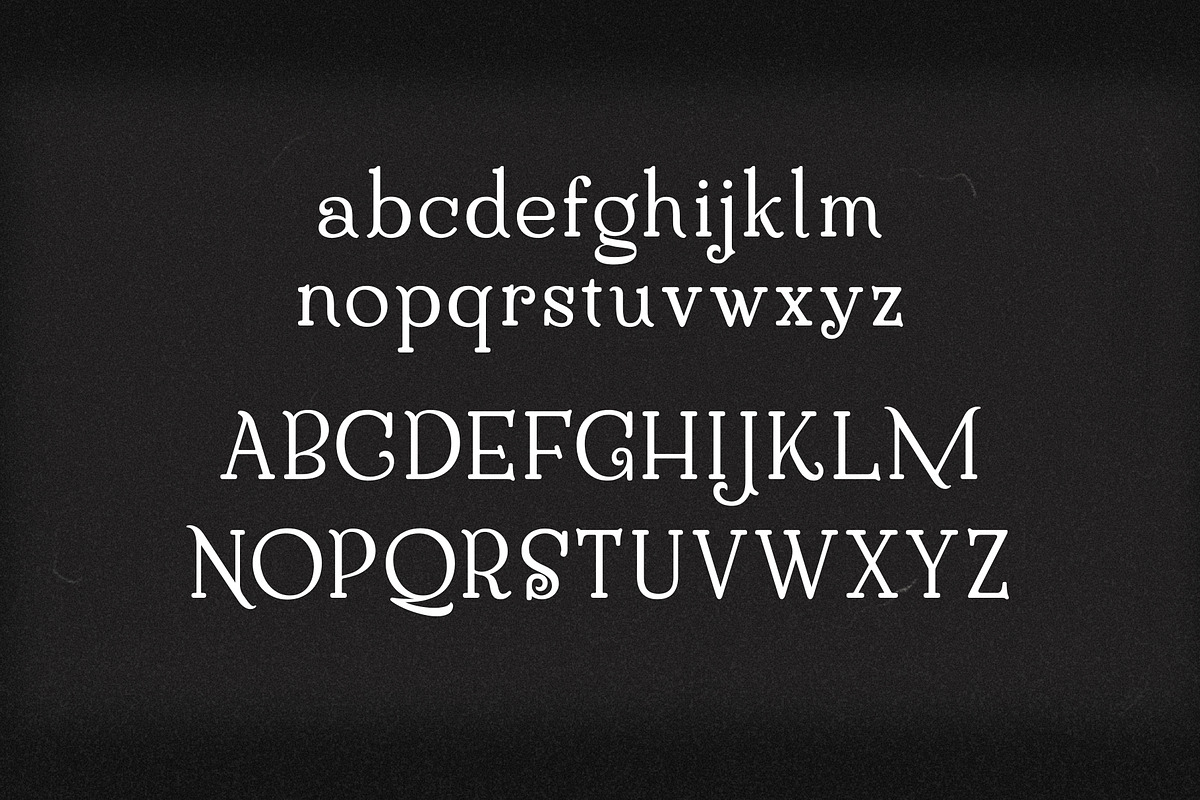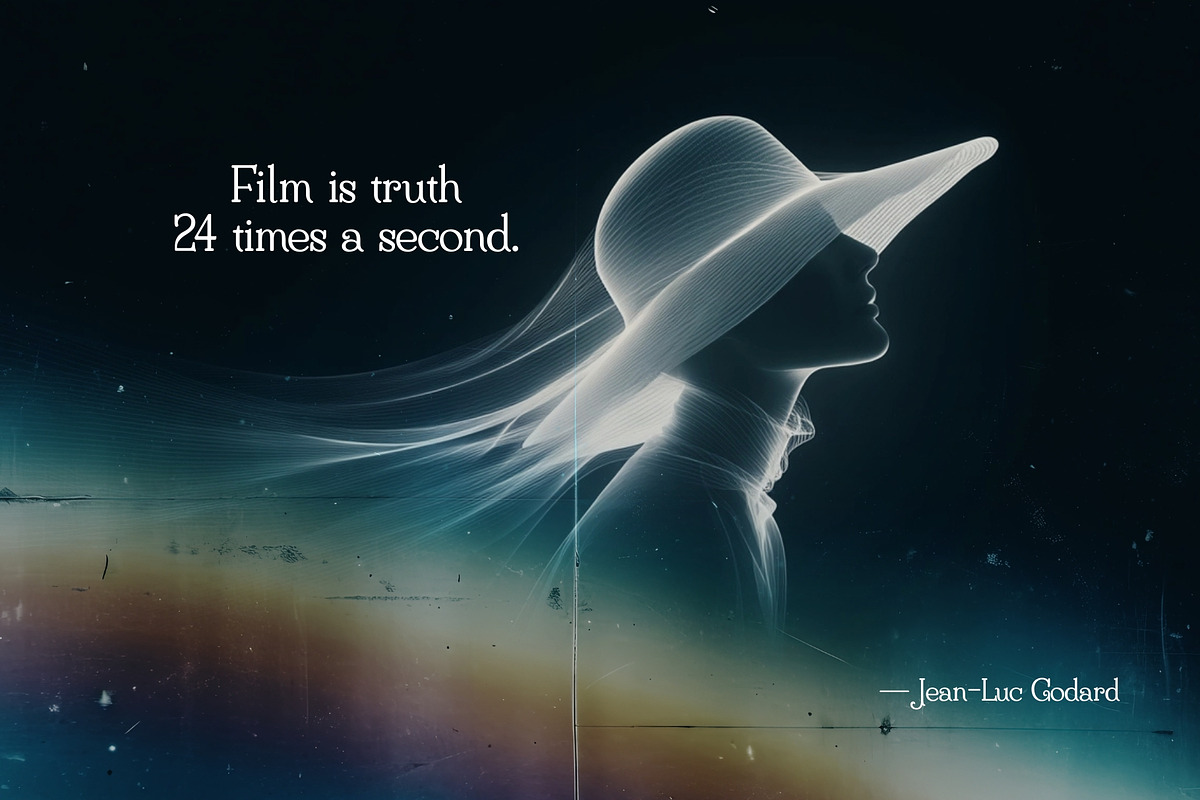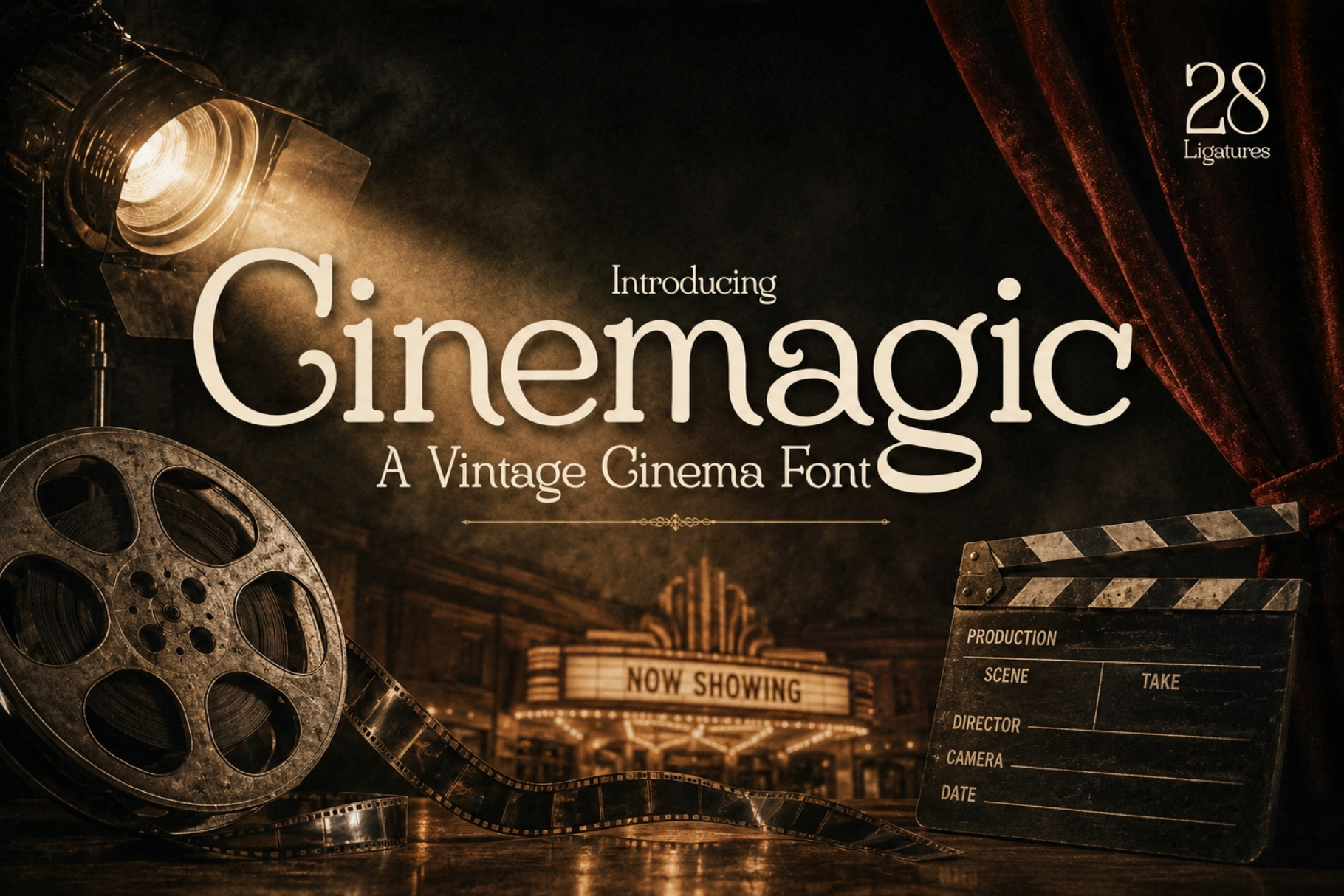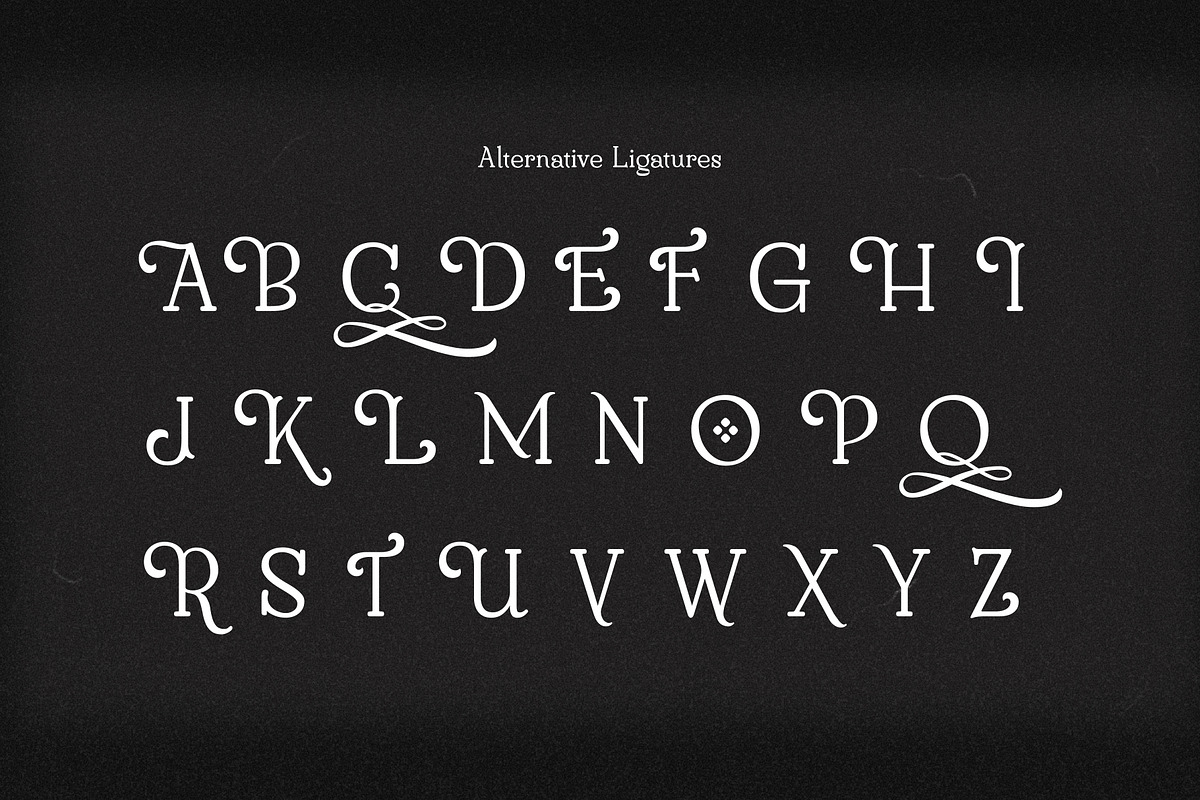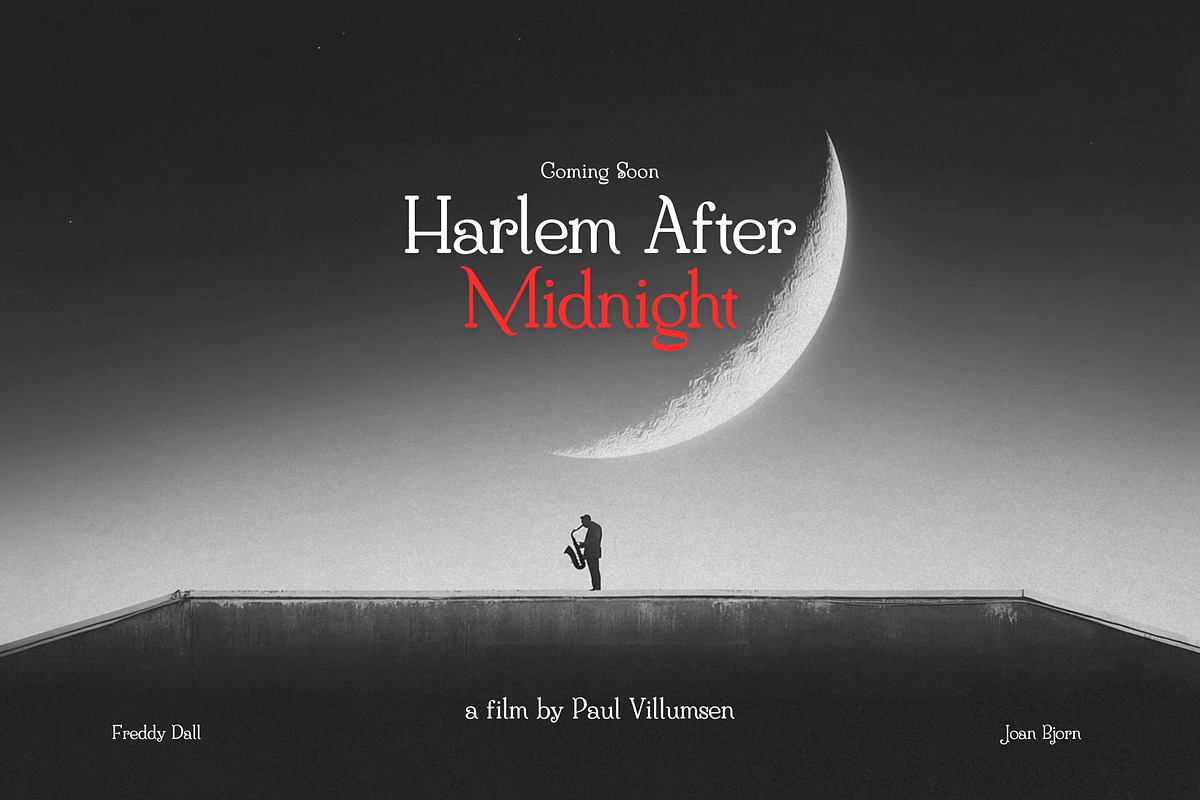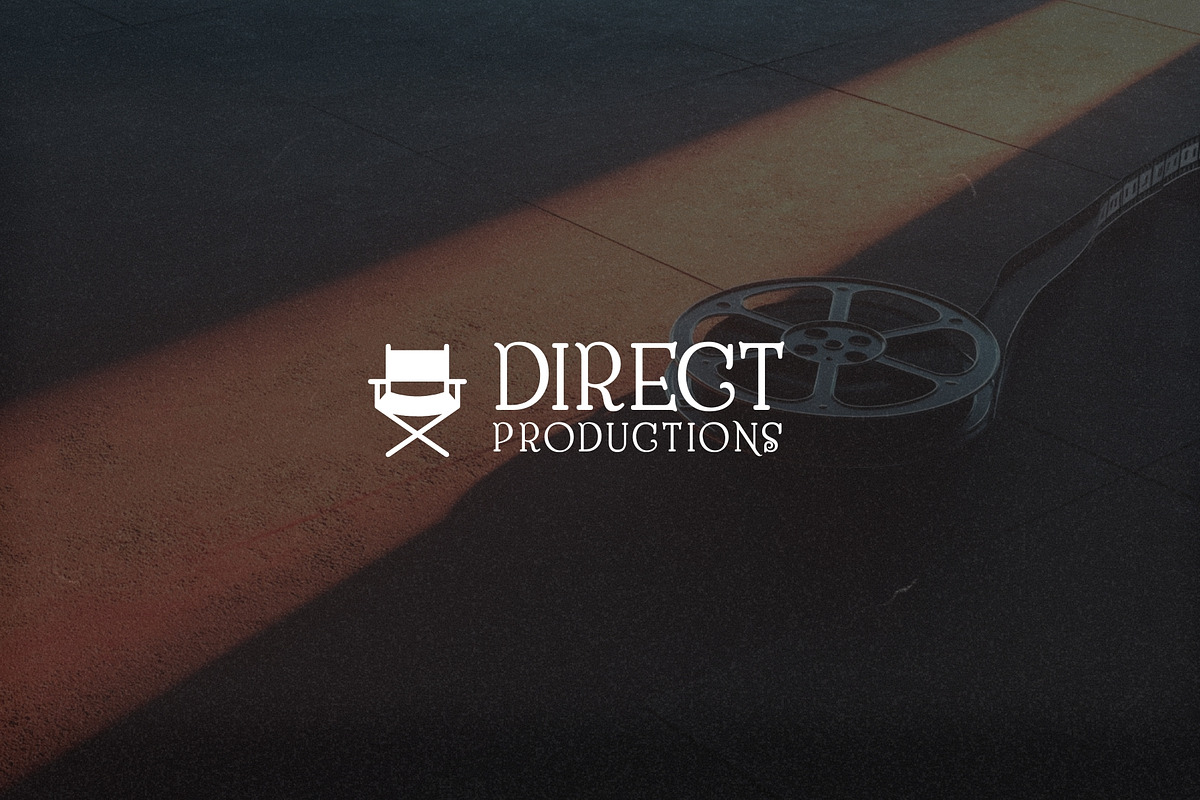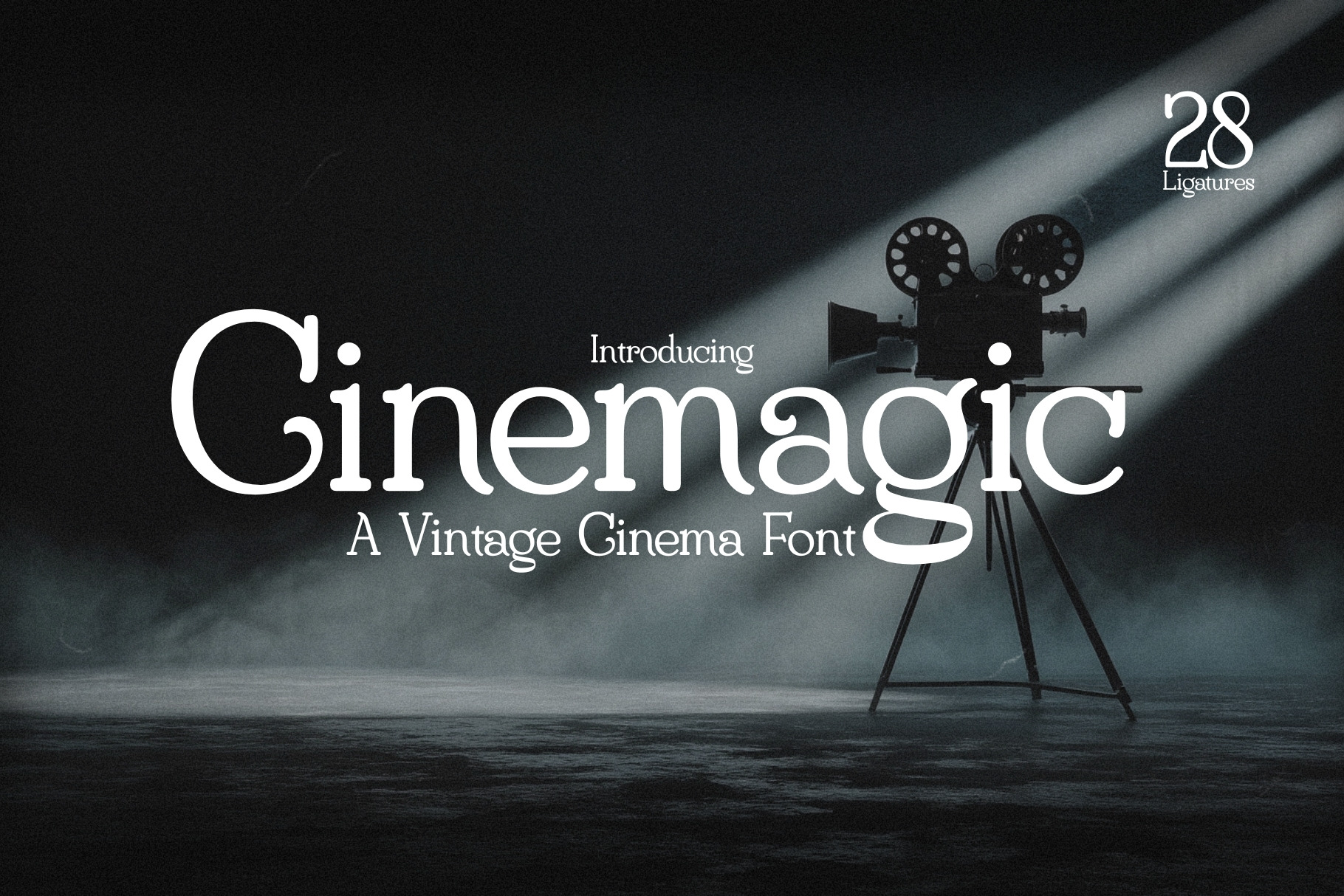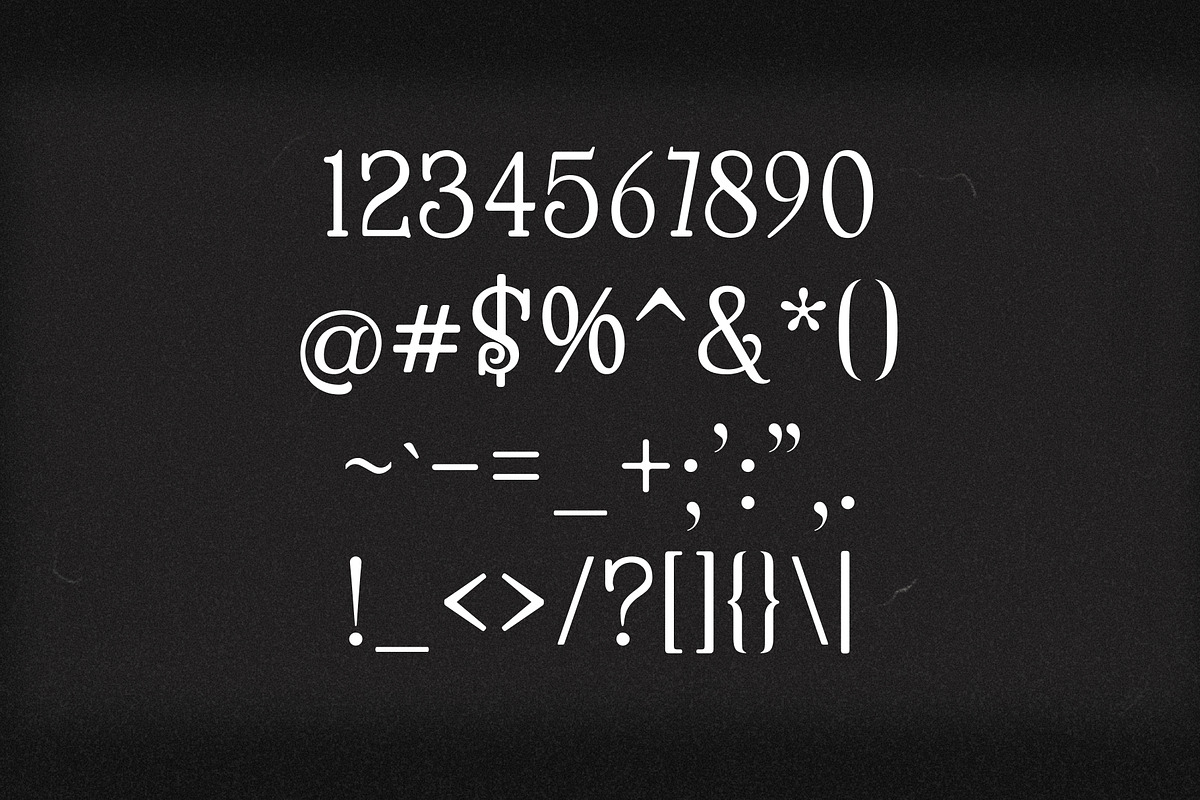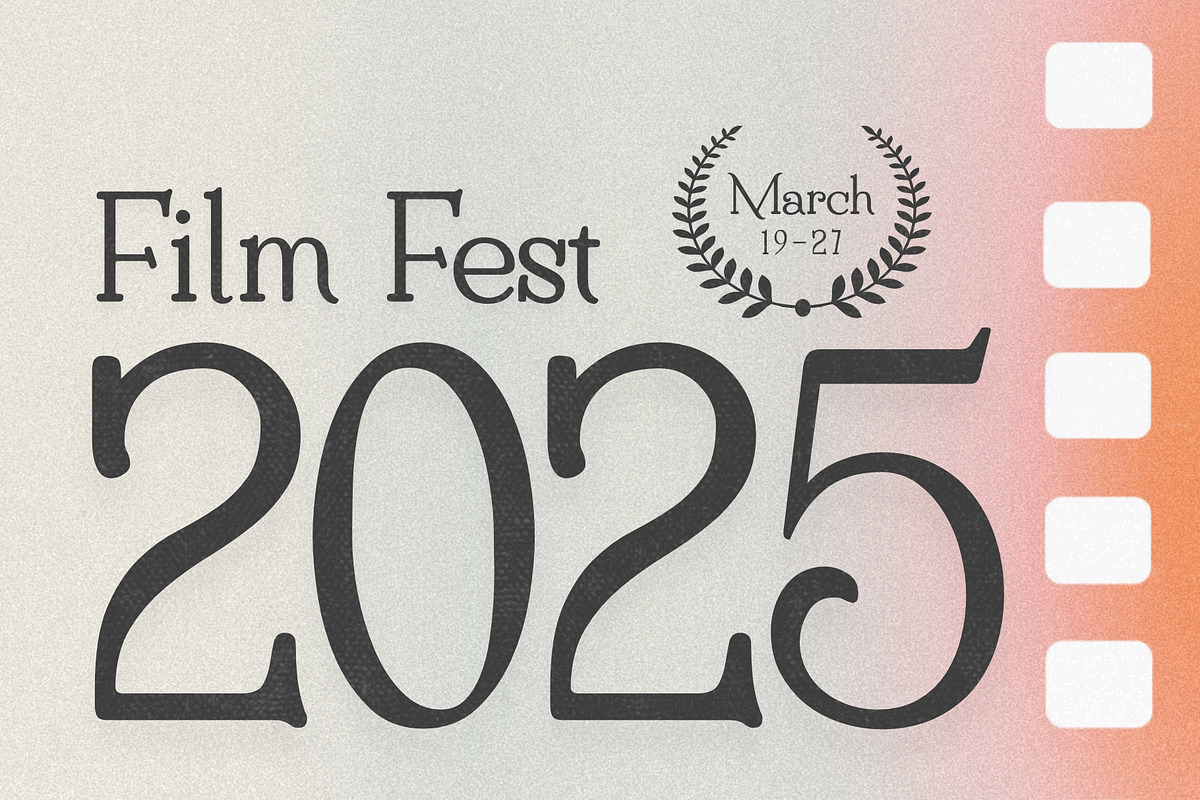
Cinemagic - Vintage Cinema Font
Introducing Cinemagic, a show-stopping typeface inspired by the golden age of cinema when the first film reels flickered to life and Hollywood was just beginning to dream. Drawing from the iconic typography of vintage movie posters, silent film titles, and art deco marquees, Cinemagic brings the glamour, drama, and charm of early 20th-century cinema to your modern designs.
Crafted with precision and passion, this font features 28 handcrafted ligatures that flow seamlessly for stunning typographic compositions. Whether you're designing for film, fashion, branding, or editorial work, Cinemagic is your ticket to visual storytelling that captivates like a classic silver screen masterpiece.
✨ Key Features:
Inspired by 1920s–1930s Hollywood film titles
Elegant vintage-meets-modern aesthetic
28 unique ligatures for dynamic letter combinations
Multilingual support for international projects
Perfect for headlines, movie posters, branding, invitations, book covers, and more
Bring the magic of the movies to your next creation, because some fonts don't just speak, they perform.